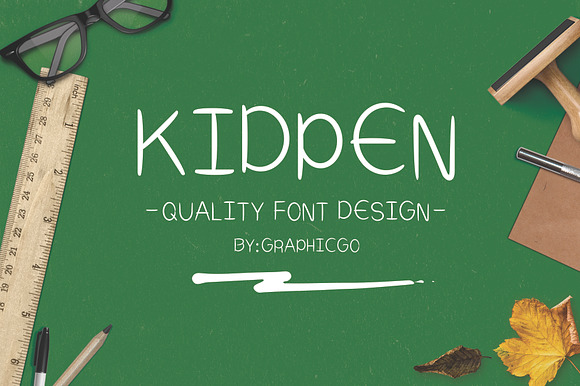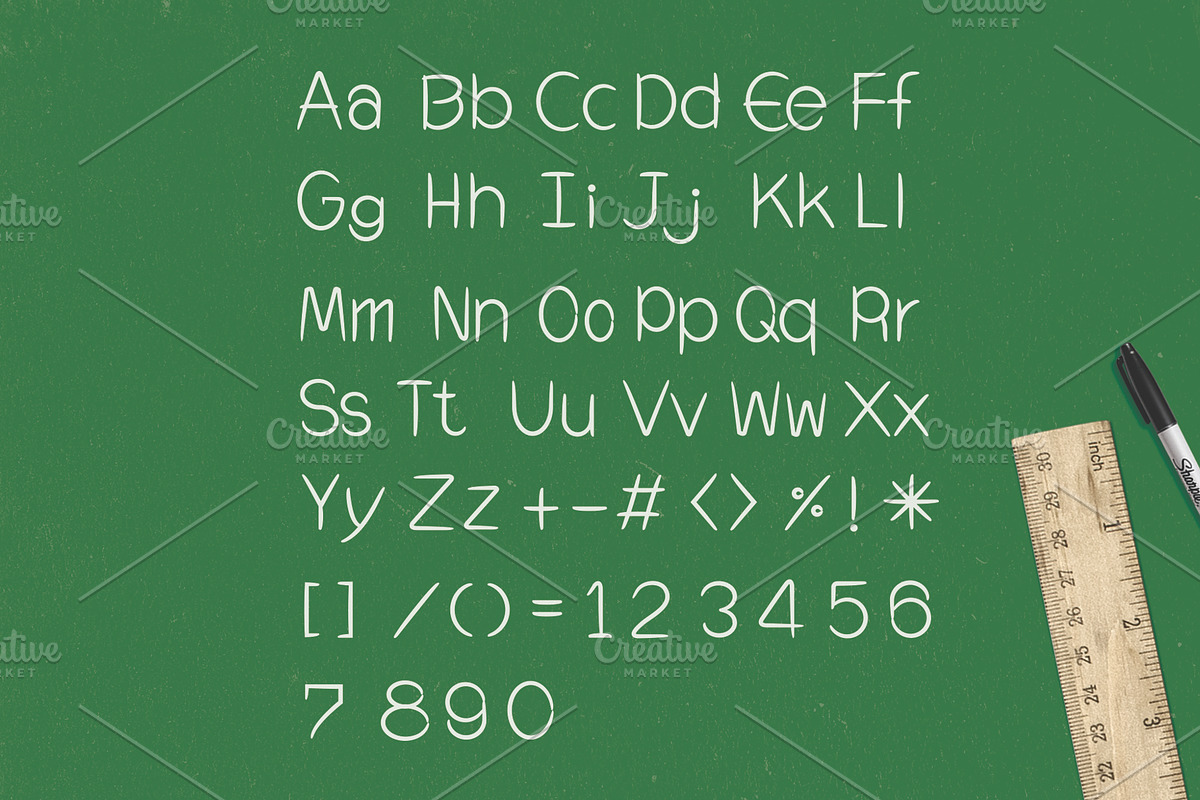
KidPen Font
KidPen Font is a simple pencil hand drawn font which is perfect for kid and classroom related projects. It comes with
Uppercase and Lowercase
- It comes with Uppercase and Lowercase Number Simple math signs Thank you and Have fun !
KidPen Font by Graphicgo fits naturally into Branding, posters, packaging, typography.